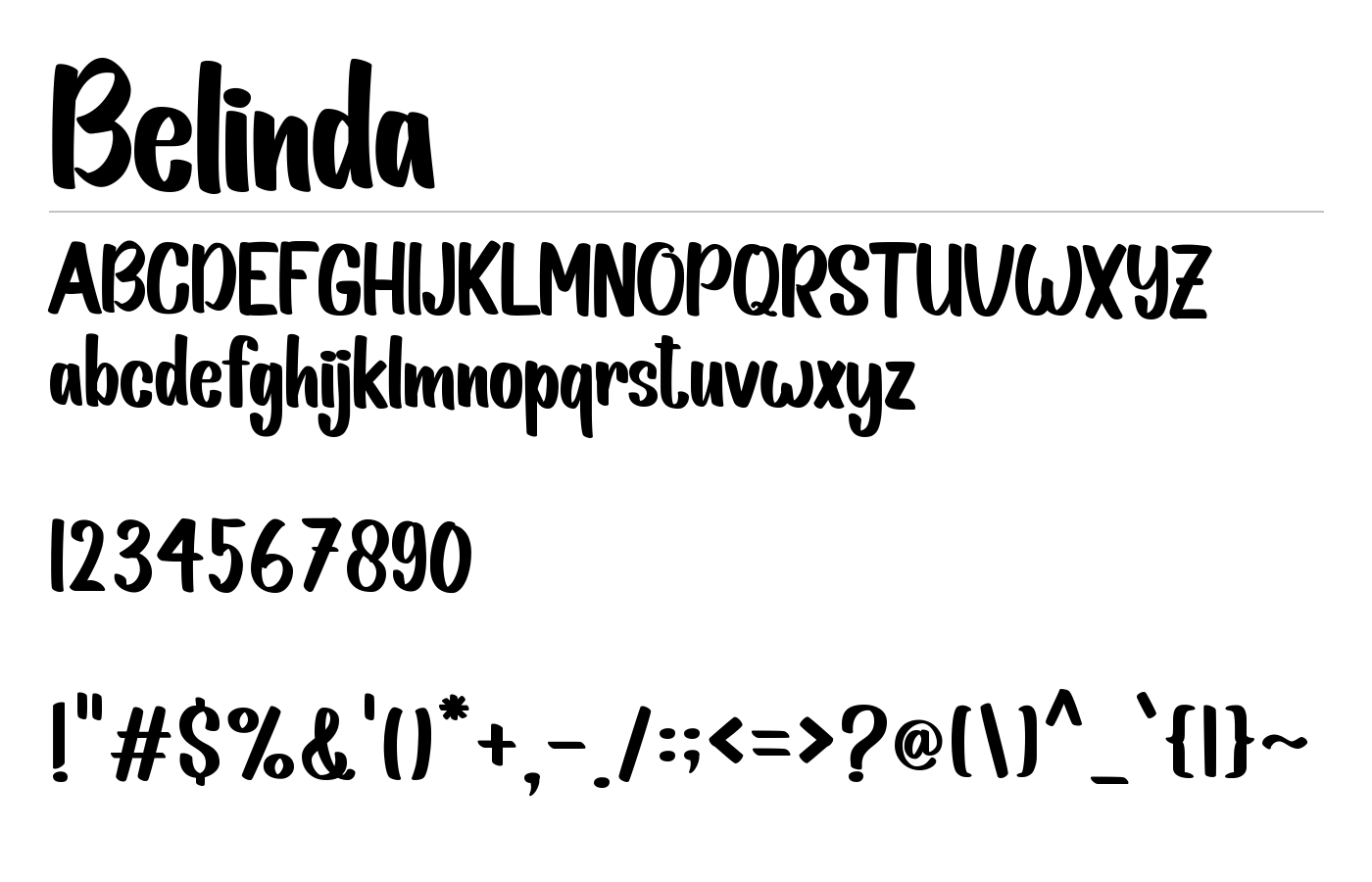
Belinda Font is a playful and bold handwritten sans serif typeface with a casual, friendly vibe. Its tall, rounded letterforms and slightly uneven strokes give it a lively, approachable personality, making it ideal for creative branding, invitations, and fun editorial projects. This font works best in headlines and display text where a warm, informal tone is desired.
Belinda Font
About Belinda Font